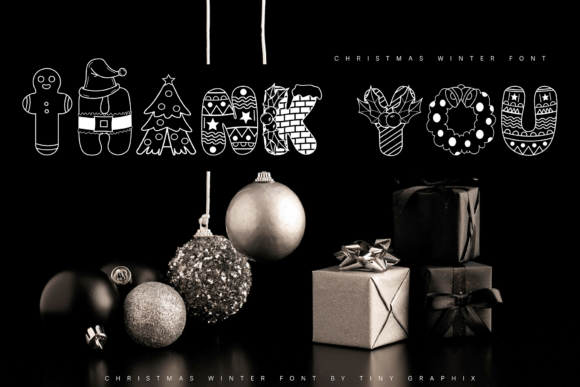
Christmas Winter Font
Introducing Christmas Winter, a festive typeface that captures the magic and joy of the holiday season. This handcrafted font is filled with the charm and cheer synonymous with Christmas. Its playful style adds a special touch to your designs, making it perfect for Christmas greeting cards, festive gift tags, and other holiday-themed projects. Whether you’re designing greeting cards, banners, social media graphics, or marketing materials, this font adds a touch of Christmas charm to your text, spreading joy and warmth during the holiday season.